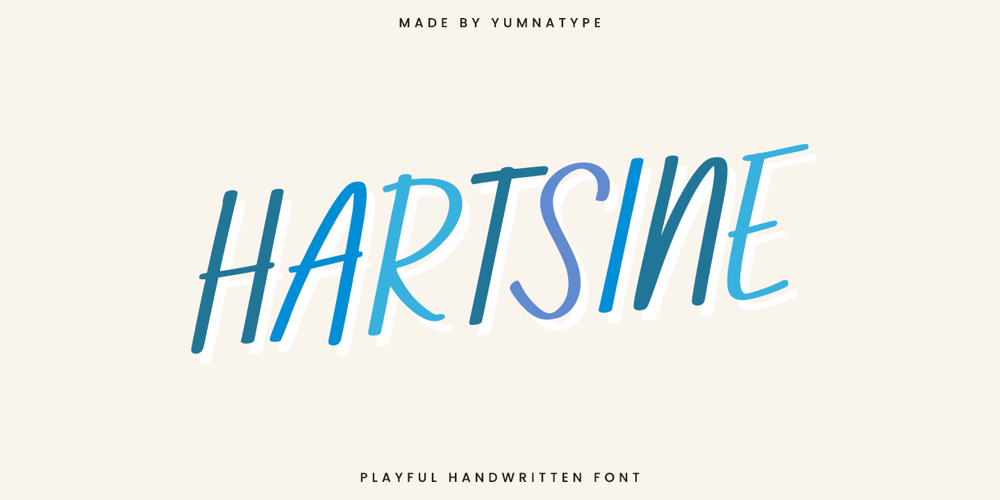
Hartsine
Hartsine font
Hartsine Font Family was designed by Donis Miftahudin and published by Yumna Type. Hartsine contains 1 styles and family package options. Hartsine is a handwritten font that exudes a sense of personal touch and elegance. Designed with large letters, its lightweight and very low contrast give it a delicate and airy feel. The constant letter proportions ensure a harmonious and balanced appearance, making Hartsine perfect for adding a handwritten charm to your projects. In addition, enjoy the features here.Features: Ligatures Multilingual Supports PUA Encoded Numerals and Punctuations Hartsine fits in headlines, logos, posters, flyers, branding materials, print media, editorial layouts, and many more designs. Find out more ways to use this font by taking a look at the font preview.Thanks for purchasing our fonts. Hopefully, you have a great time using our font. Feel free to contact us anytime for further information or when you have trouble with the font. Thanks a lot and happy designing.